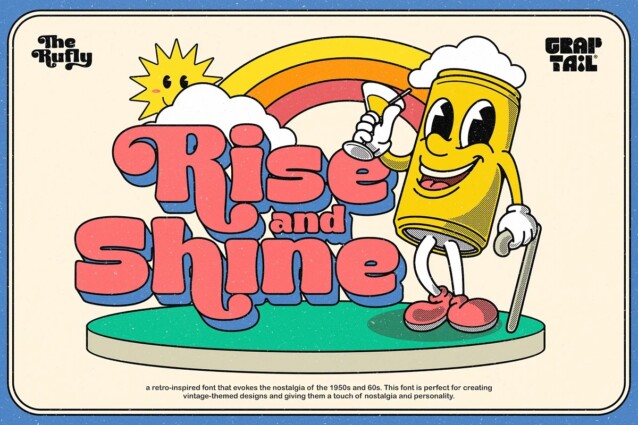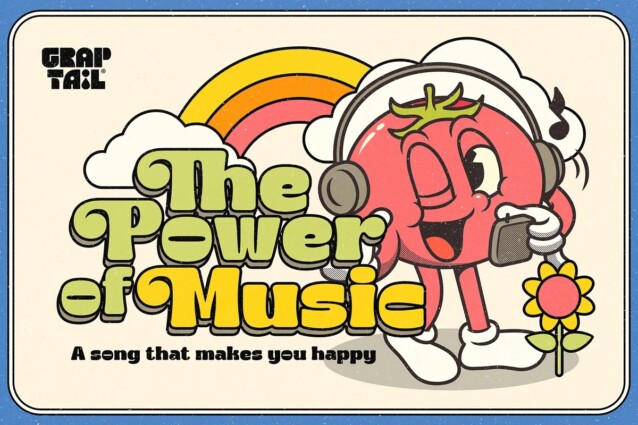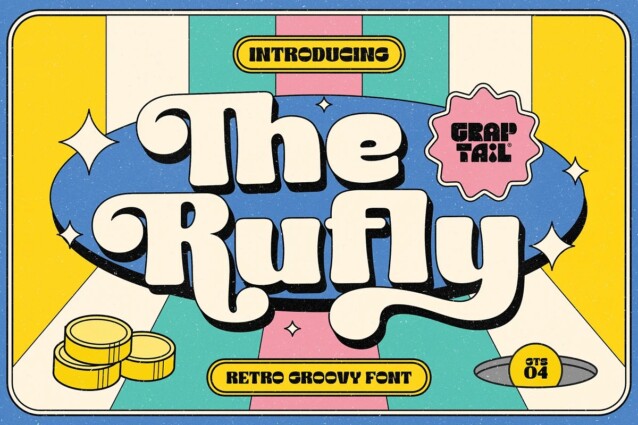
The Rufly Font
The Rufly Font is a display serif font that delivers a classic retro feel with strength and boldness. This font is perfect for creating vintage-themed designs and giving it a touch of nostalgia and personality.
The Rufly features a soft, solid design with curved corners and a unique letter shape. This font also includes a variety of alternative characters and ligatures, allowing you to create many different looks with the same font.